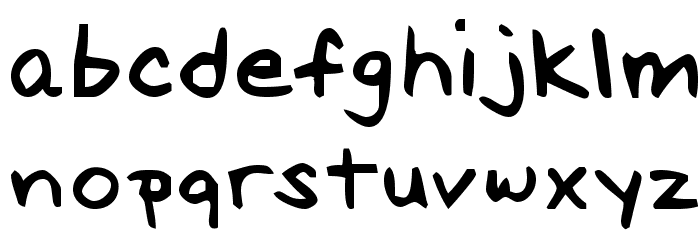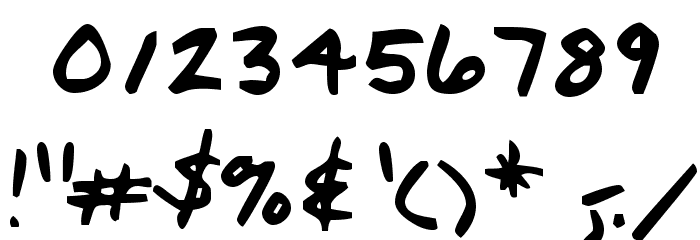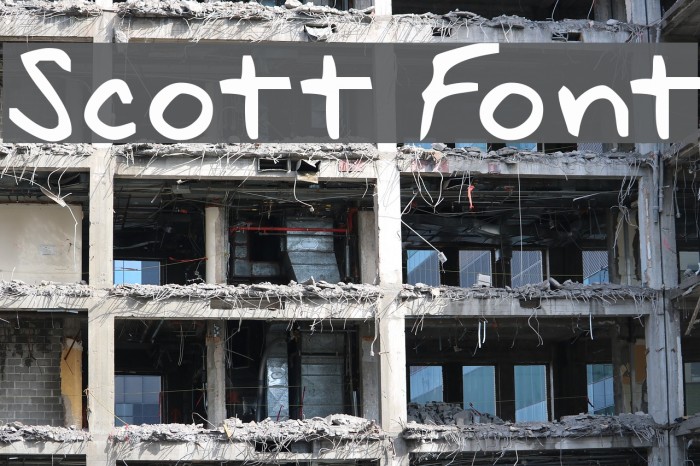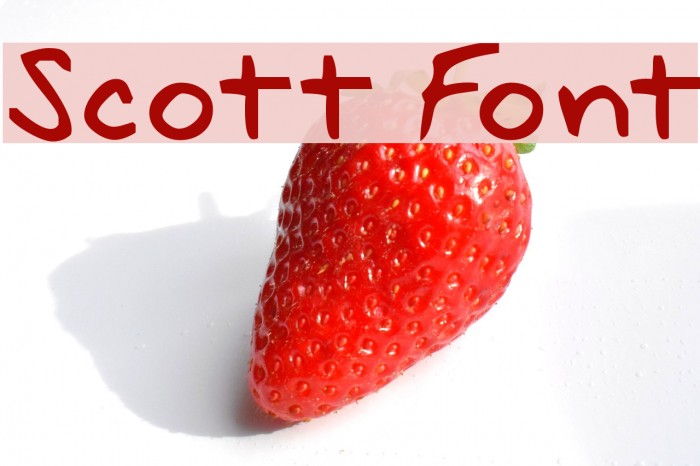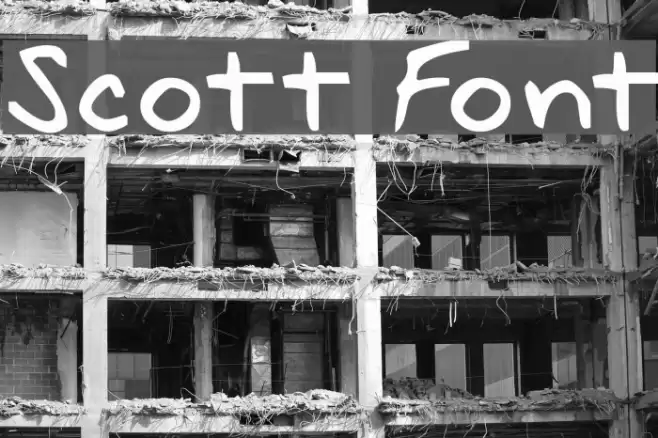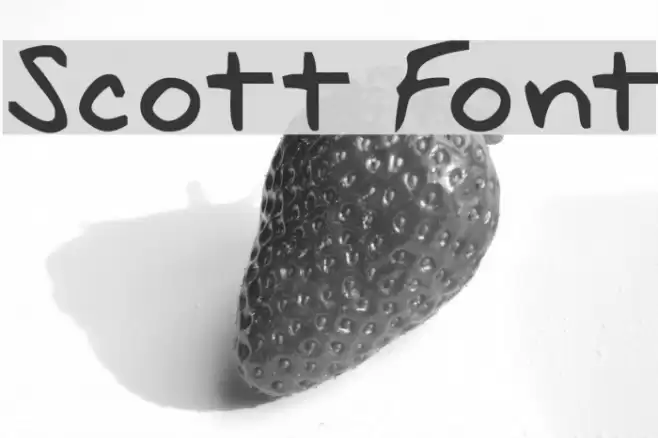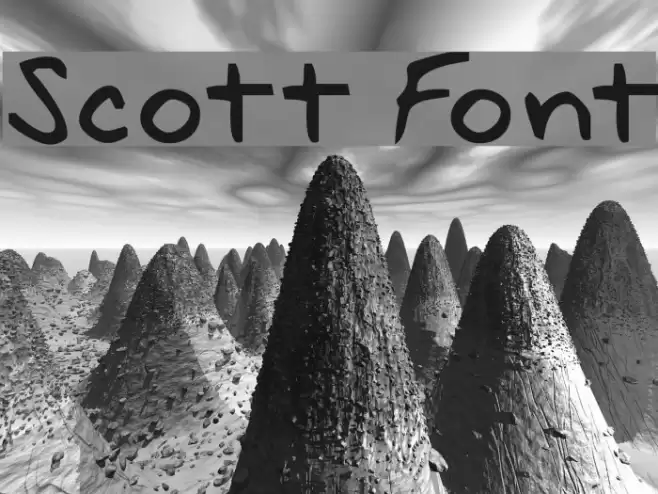
Scott Font
This font exhibits a playful and casual handwritten style, characterized by its irregular strokes and informal appearance. The letters are slightly slanted, giving a dynamic and energetic feel. The uppercase and lowercase letters maintain a consistent flow, while the numerals and special characters blend seamlessly with the overall style. The strokes vary in thickness, adding a touch of spontaneity and authenticity. This font is ideal for projects that require a personal touch, such as greeting cards, invitations, or creative branding.
A playful, casual handwritten font with dynamic strokes.
- Proposed Projects: Greeting cards, invitations, creative branding, personal notes, and informal communication.
- Category: Handwritten
- Overall Style: Casual, Playful
- Use Case: Headlines, Informal text, Creative projects